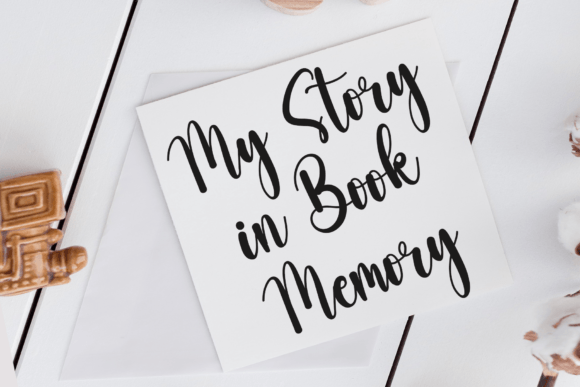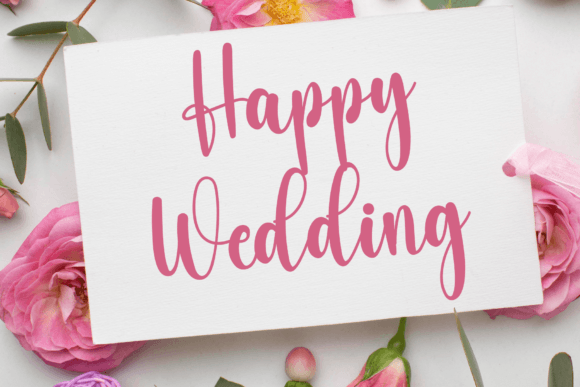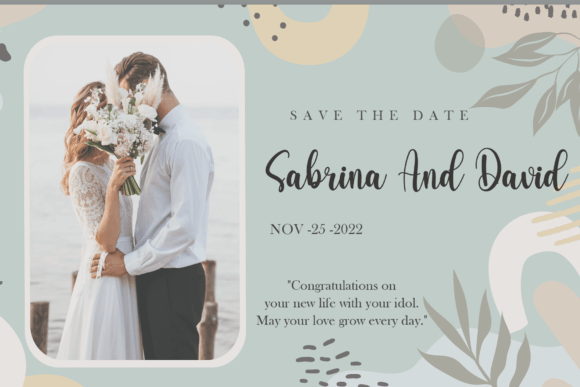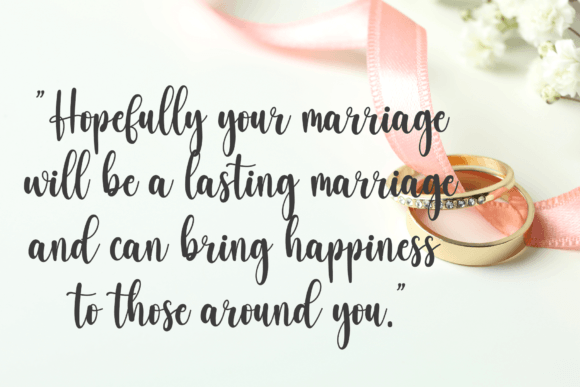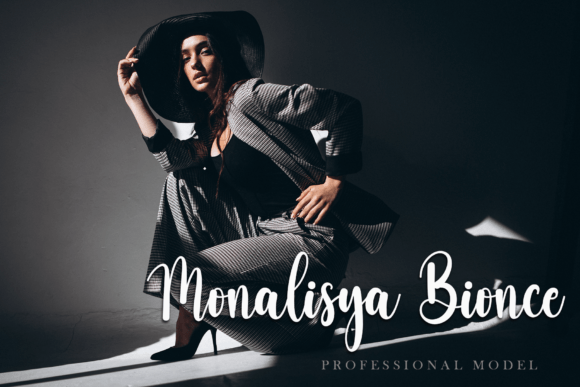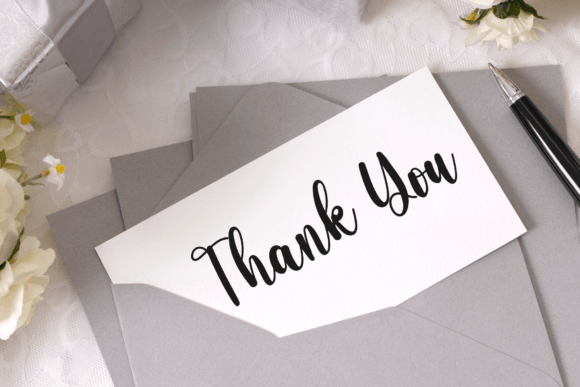
Sweet Honey Font
About Sweet Honey Font
Sweet Honey is a stylish handwritten font that exudes a contemporary atmosphere and impeccable form, drawing inspiration from timeless classic calligraphy. Its balanced and varied design enhances the beauty of your projects, making it a versatile choice for a wide range of creative endeavors.
The font’s elegance and sophistication are evident in its carefully crafted letterforms. Its contemporary vibe adds a modern touch, while the influence of classic calligraphy lends a sense of timeless beauty. This balance between the traditional and the contemporary makes Sweet Honey a captivating choice for various design applications.
Sweet Honey’s versatility allows it to enhance the visual appeal of your projects, whether you’re creating elegant wedding invitations, designing sophisticated logos, crafting stylish branding materials, or working on any other creative endeavor. Its impeccable form and graceful curves add a touch of refinement to your designs, making them visually stunning and memorable.
The font’s balanced and varied design ensures that it stands out while maintaining a harmonious appearance. Whether used in formal or informal contexts, Sweet Honey adds a touch of sophistication to your content. Its seamless flow and elegant strokes create a sense of fluidity, making it visually appealing and engaging to the audience.
Incorporating Sweet Honey into your designs not only elevates their beauty but also communicates your attention to detail and appreciation for refined typography. Its timeless elegance makes it a popular choice among designers seeking fonts that exude sophistication and charm. By using Sweet Honey, you’re selecting a font that enhances your creativity and transforms your projects into works of art that captivate and inspire.
So, whether you’re designing elegant invitations, crafting luxurious branding materials, developing stylish logos, or working on any other creative project, let Sweet Honey be your font of choice. Its contemporary atmosphere and impeccable form add a touch of timeless beauty to your designs, making them visually captivating and unforgettable. Embrace the sophistication of Sweet Honey and watch your projects come to life with a touch of elegance and grace.